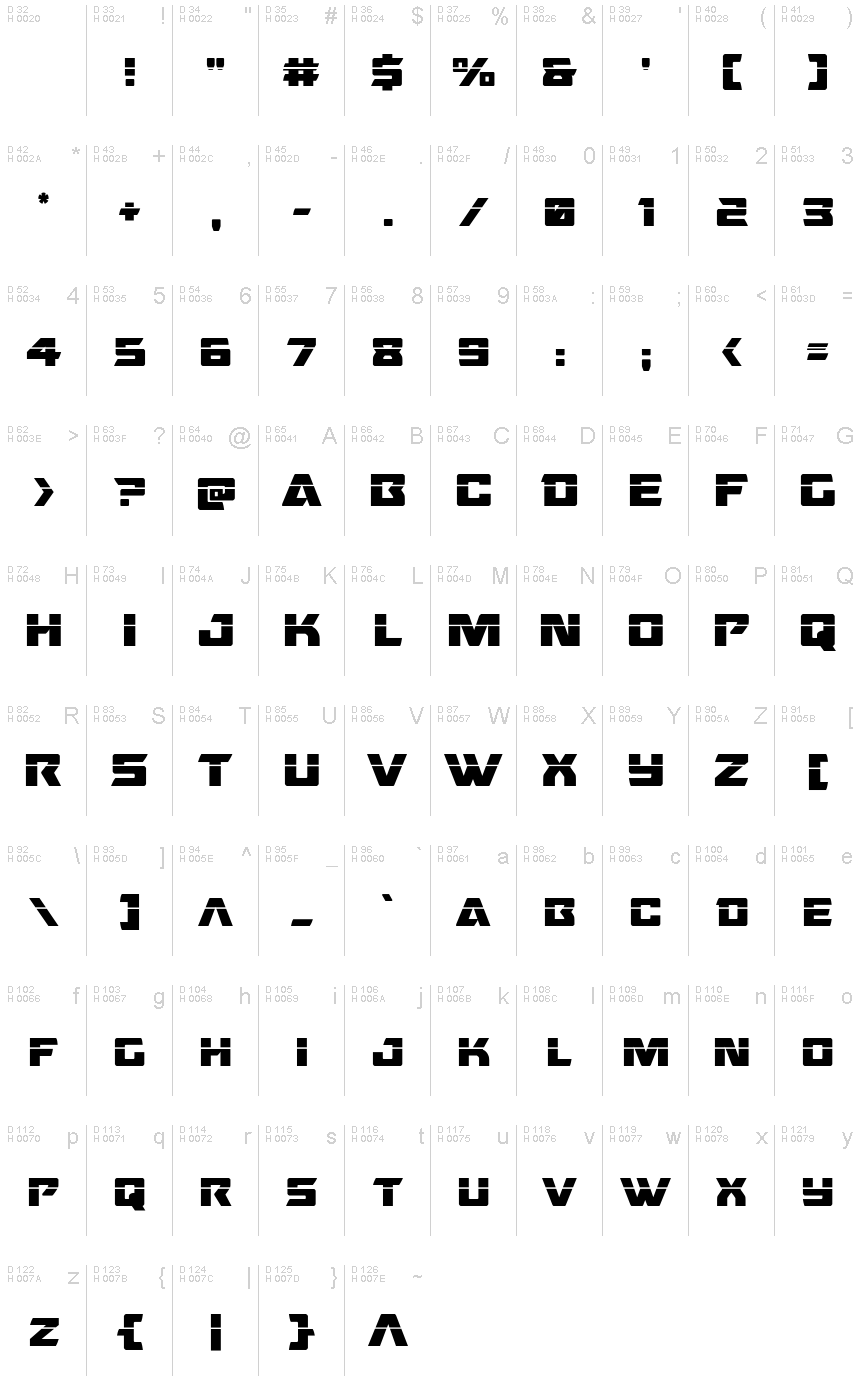
Oceanic Drift Laser
Oceanic Drift Laser, a striking futuristic font from the talented team at Iconian Fonts, commands attention with its bold, expanded strokes and sleek, laser-like aesthetic. This captivating display typeface exudes a sense of technological elegance, seamlessly blending modern minimalism with a touch of retro-futuristic flair. Its distinctive character shapes and dynamic, elongated forms evoke a sense of speed and innovation, making it a captivating choice for bold branding, eye-catching headlines, and dynamic digital interfaces.
Oceanic Drift Laser's versatility shines through its ability to adapt to a range of design applications, from immersive sci-fi environments to cutting-edge product packaging and high-tech user interfaces. Its bold, attention-grabbing presence lends itself well to crafting impactful visual narratives, whether in the realm of film, gaming, or innovative digital experiences. Designers seeking to infuse their projects with a sense of futuristic allure and technological sophistication will find Oceanic Drift a compelling and versatile addition to their creative toolbox.